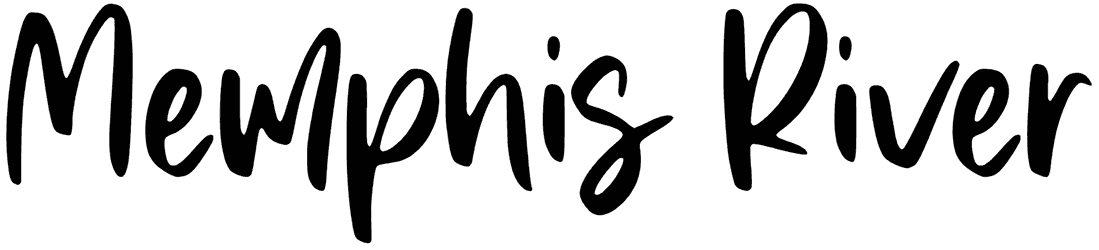
Memphis River Font
Memphis River captures the art and beauty of calligraphy with a personal touch. This script font has a decorative mode that makes it suitable for adding gloss.